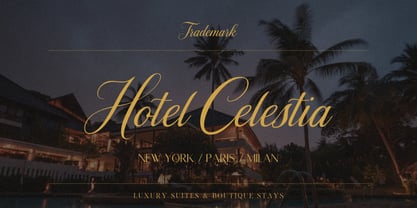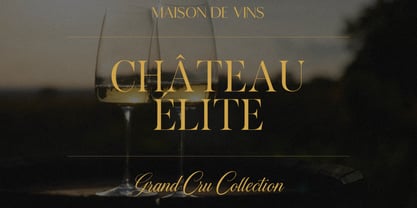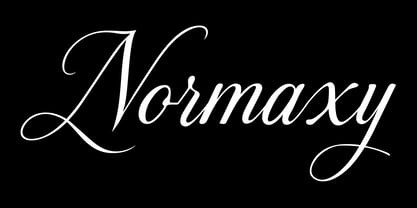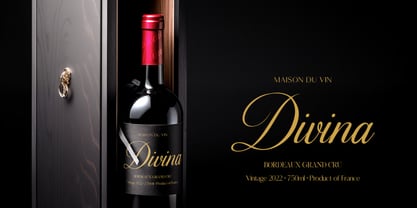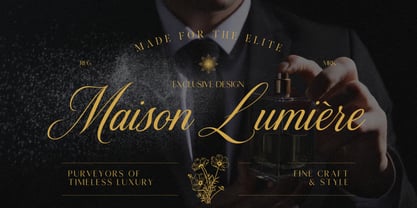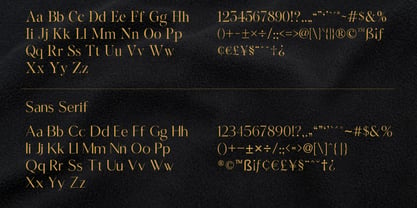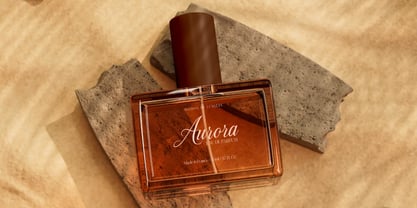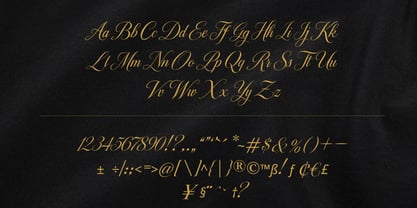
Normaxy
The Normaxy Font Family was designed by Hasnat Khan and published by Hasnat Studio. Normaxy contains 1 styles. More about this family
Normaxy is a refined luxury font crafted for designers and brands that demand elegance, exclusivity, and timeless sophistication. Combining graceful script-inspired details with a modern aesthetic, Normaxy delivers a premium visual experience that enhances every project with style, personality, and professionalism.
Designed to embody luxury and versatility, Normaxy strikes the perfect balance between contemporary refinement and classic beauty. Its elegant character makes it ideal for high-end branding, upscale packaging, fashion campaigns, editorial layouts, and premium product presentations. Whether you're building a luxury brand identity or designing sophisticated marketing materials, Normaxy helps create an unforgettable impression.
With its polished appearance and versatile styling, Normaxy seamlessly adapts to both modern and classic design concepts, making it an essential addition to any designer’s font collection.
✿ Key Features:
• Luxury Elegant Design: Sophisticated letterforms crafted for premium visual identities.
• Refined Script-Inspired Style: Graceful details that add exclusivity and charm.
• Modern & Timeless Aesthetic: Perfect blend of contemporary trends and classic elegance.
• Versatile Typography: Suitable for branding, editorials, packaging, and display use.
• Professional Appearance: Designed to communicate luxury, quality, and prestige.
• Balanced Letterforms: Excellent readability while maintaining a distinctive character.
• Premium Design Quality: Ideal for both digital and print applications.
✿ Perfect For:
• Luxury Branding & Logo Design: Create memorable and prestigious brand identities.
• Packaging Design: Perfect for cosmetics, skincare, perfumes, wine labels, and premium products.
• Fashion Editorials & Magazines: Add elegance to fashion campaigns and publishing projects.
• Boutique Hotels & Hospitality Branding: Create sophisticated visual experiences.
• Wedding Invitations & Stationery: Bring timeless beauty to special occasions.
• Social Media & Marketing Materials: Design high-end promotional content.
• Product Labels & Luxury Advertising: Enhance premium product presentation.
Transform your creative vision with Normaxy—a refined luxury font designed for premium branding, fashion editorials, boutique hotels, packaging design, wine labels, perfume branding, logos, and sophisticated visual identities. Create stunning designs that embody elegance, prestige, and timeless style.